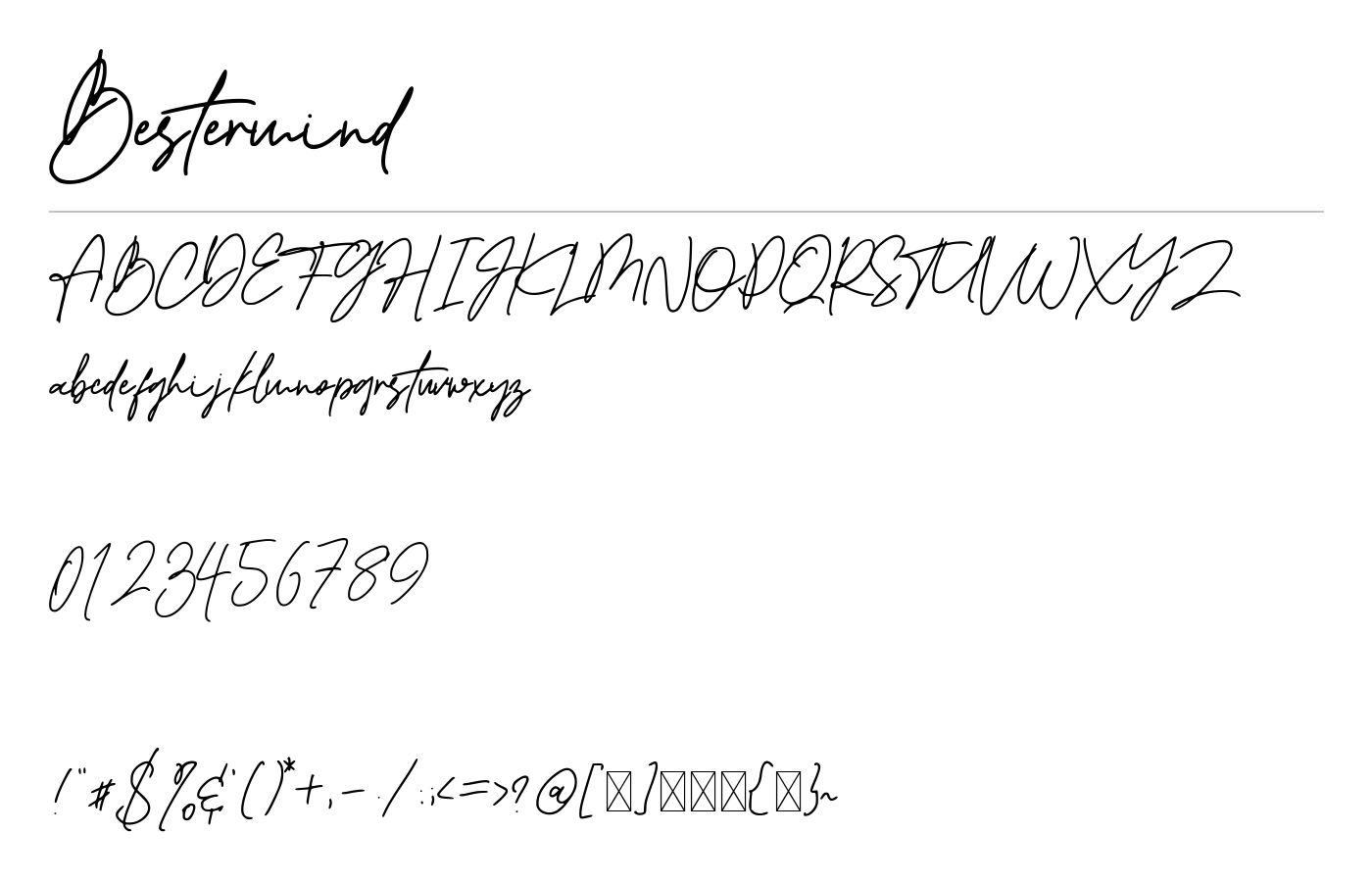
Bestermind is a delicate, hand-drawn script font that exudes a casual yet refined personality with its thin, flowing strokes and natural, uneven letterforms. Its airy and elegant style makes it ideal for creative branding, personal logos, invitations, and lifestyle projects where a touch of authenticity and handwritten charm is desired. This font works best for headlines and decorative use rather than long text, adding a modern, artistic flair to any design.
Bestermind Font
About Bestermind Font
| Font family | Bestermind Font |
| Designer | Herjuna a.k.a Thirtypath Studio |